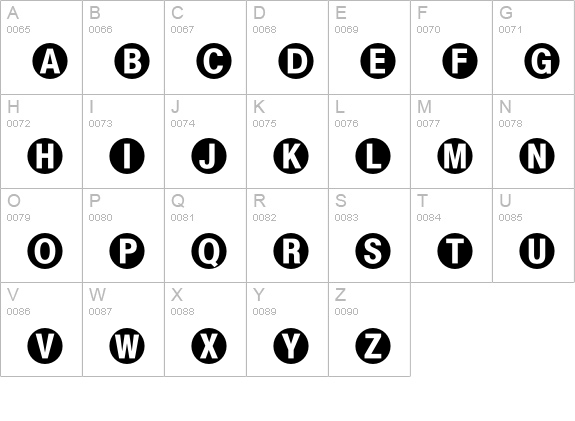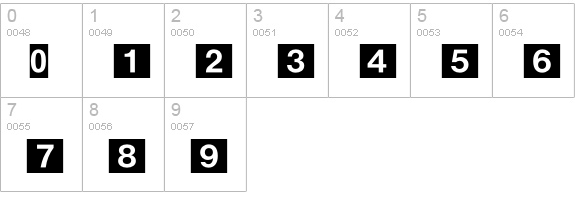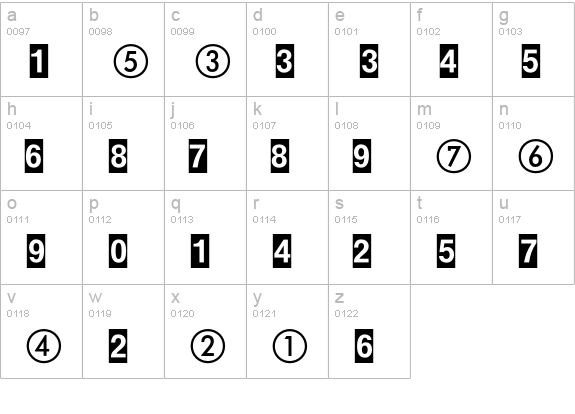
Bundesbahn Pi 1 Font Details
Bundesbahn Pi 1 font is a unique and stylish typeface that exudes a sense of modernity and sophistication. With its clean lines and sleek design, this font is perfect for a wide range of design projects, from branding to editorial layouts. The sharp edges and geometric shapes of Bundesbahn Pi 1 font give it a contemporary edge that is sure to make your text stand out. What makes Bundesbahn Pi 1 font even more appealing is that it is available for free download at FontsMarket.com. This means that you can easily access this high-quality font without having to spend a dime. Whether you are a graphic designer looking to add a fresh touch to your projects or a business owner in need of a new font for your marketing materials, Bundesbahn Pi 1 font is a fantastic choice that won't cost you a penny. Download it today and elevate your designs with this sleek and modern typeface.